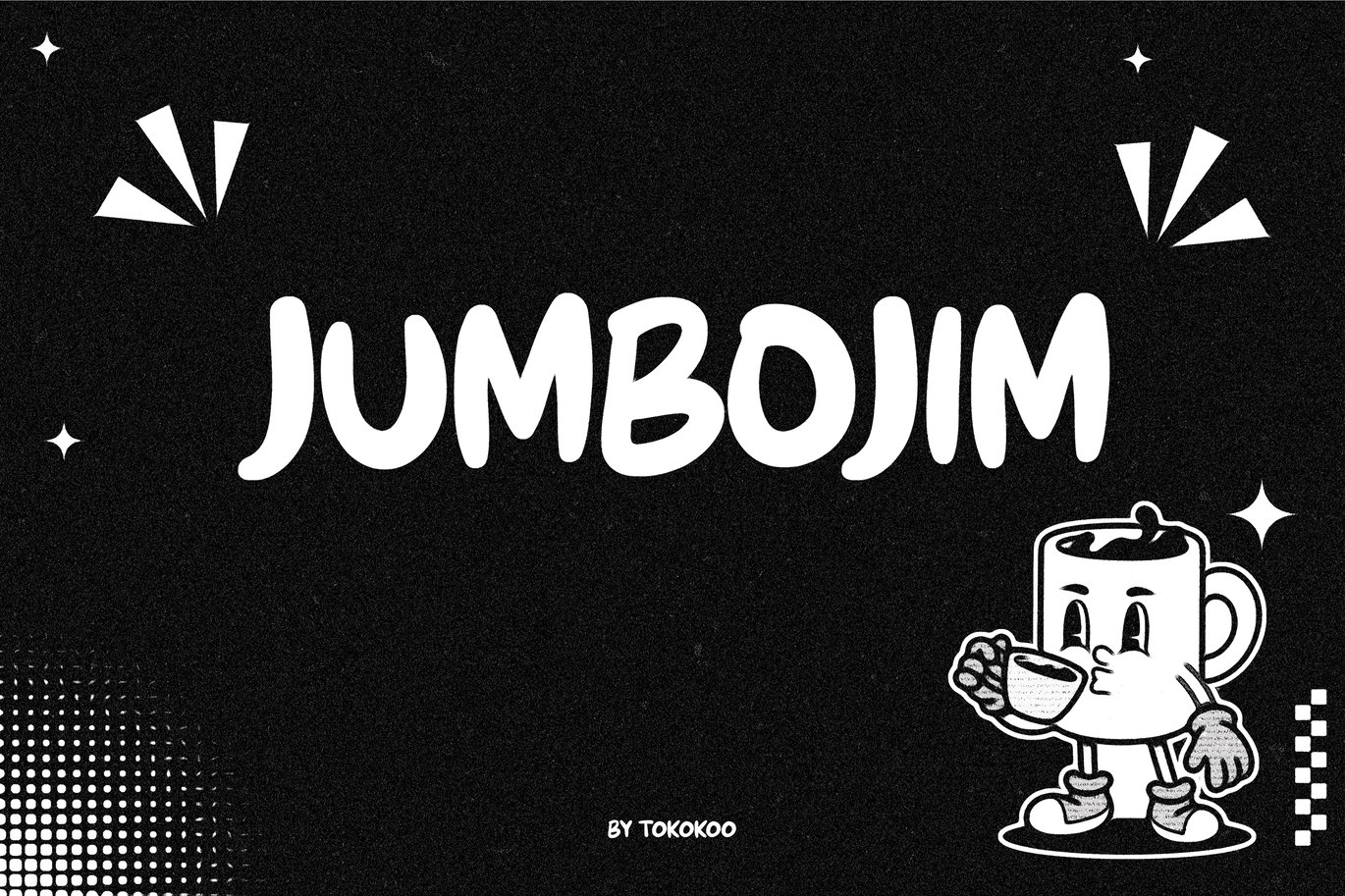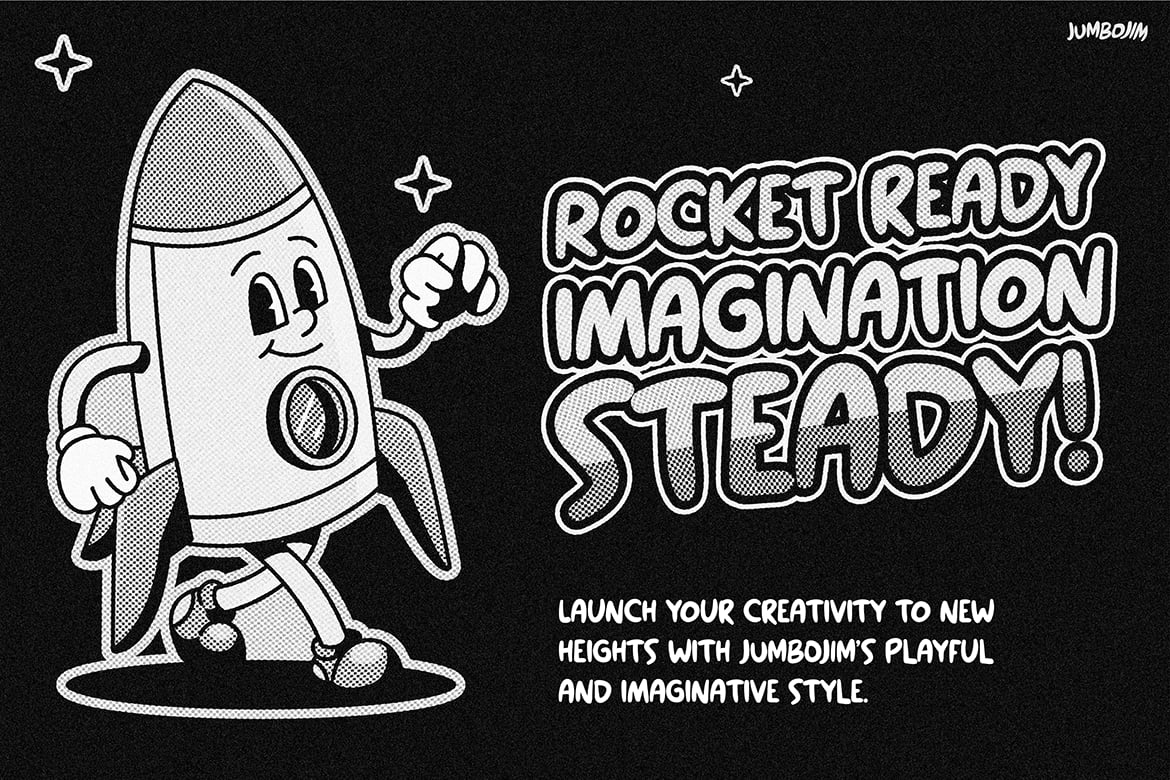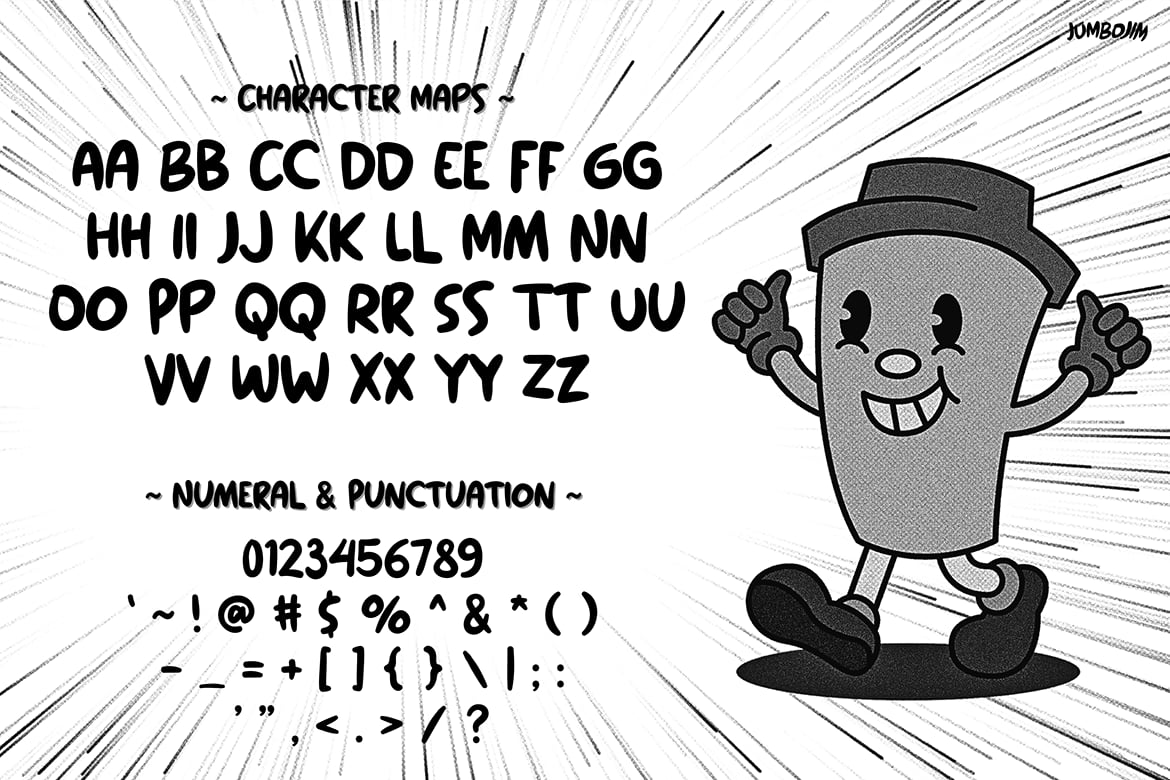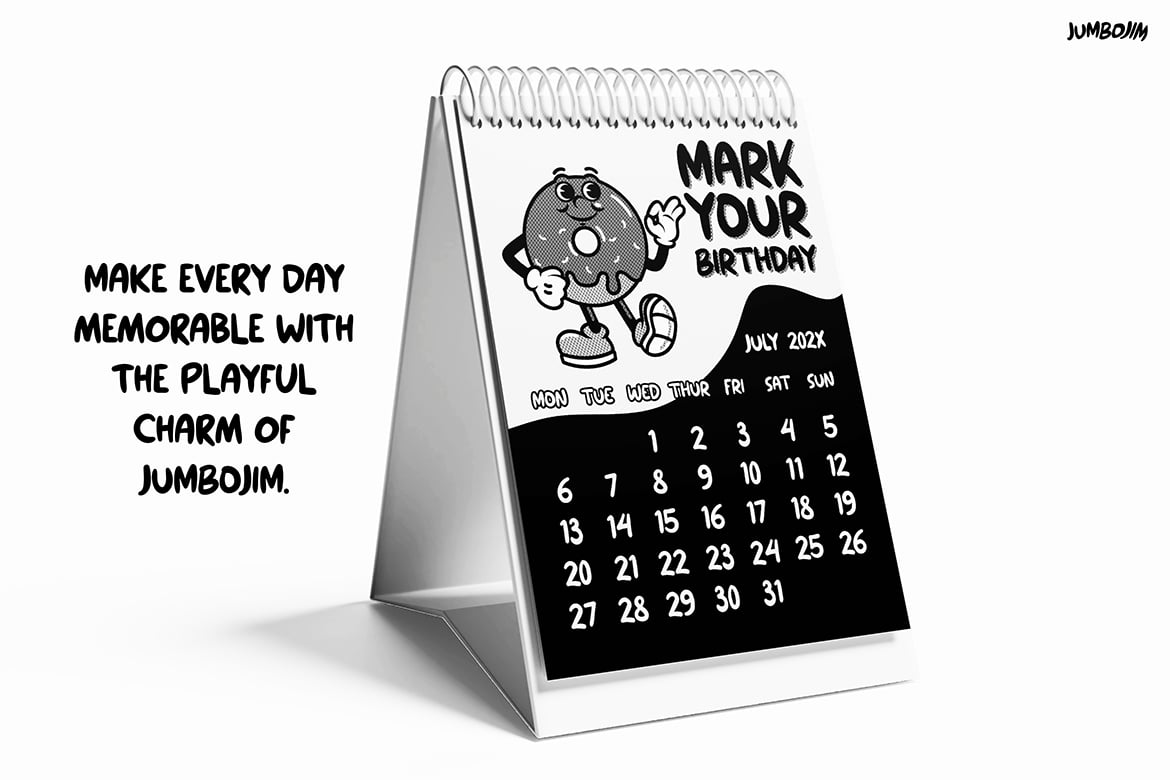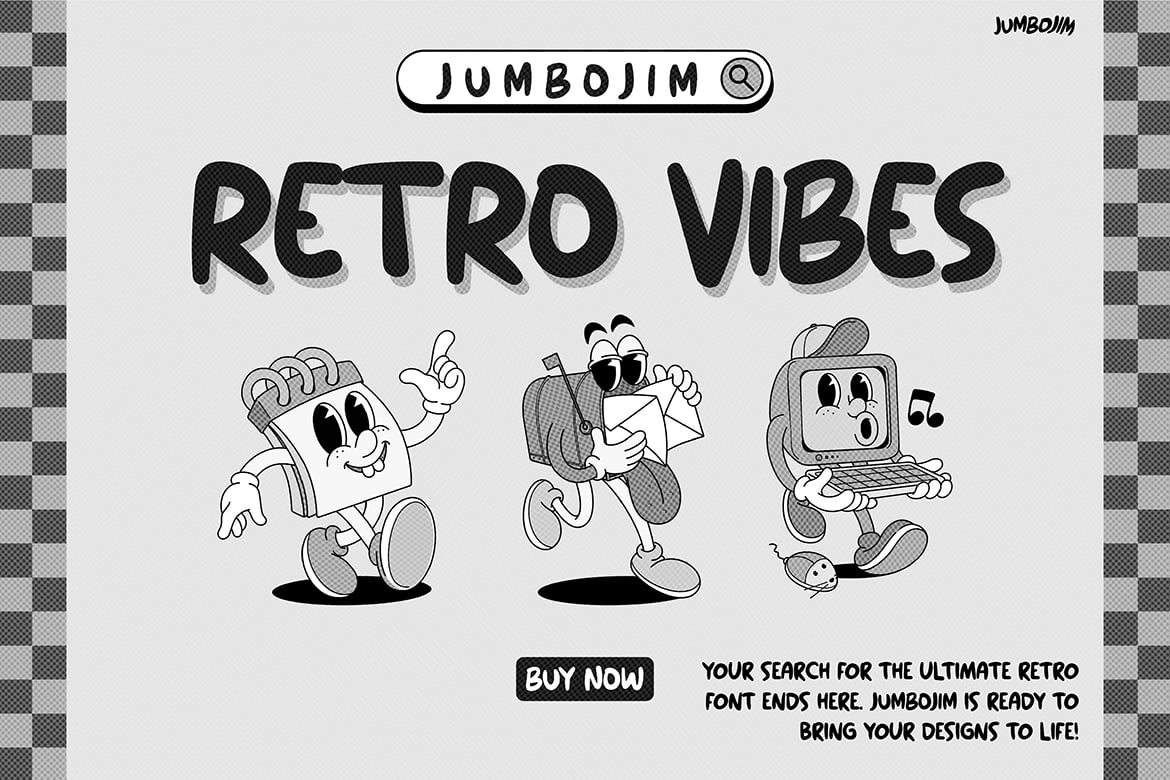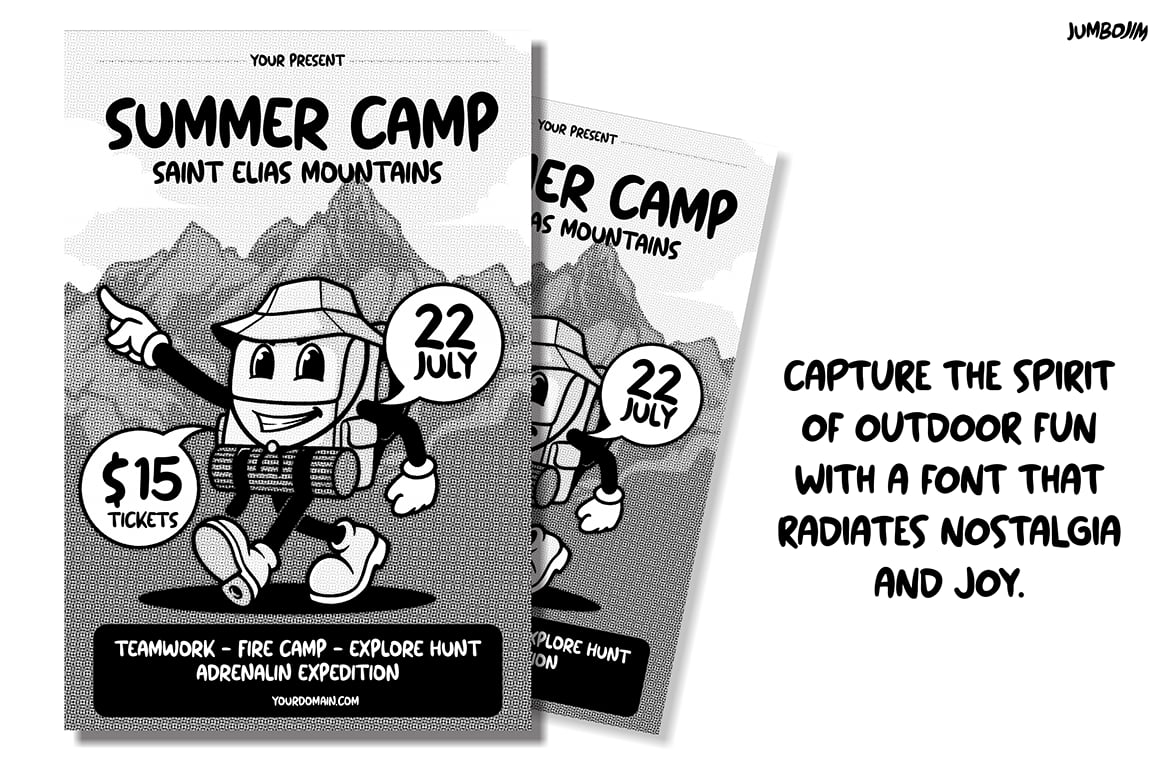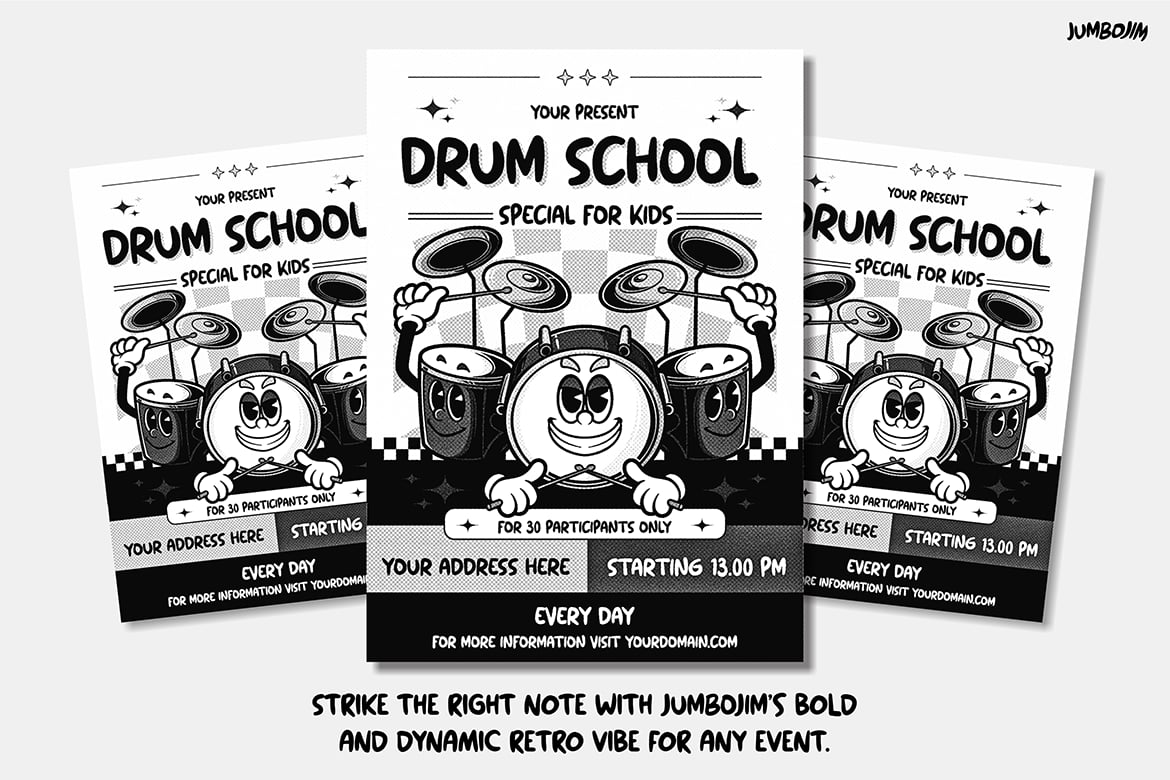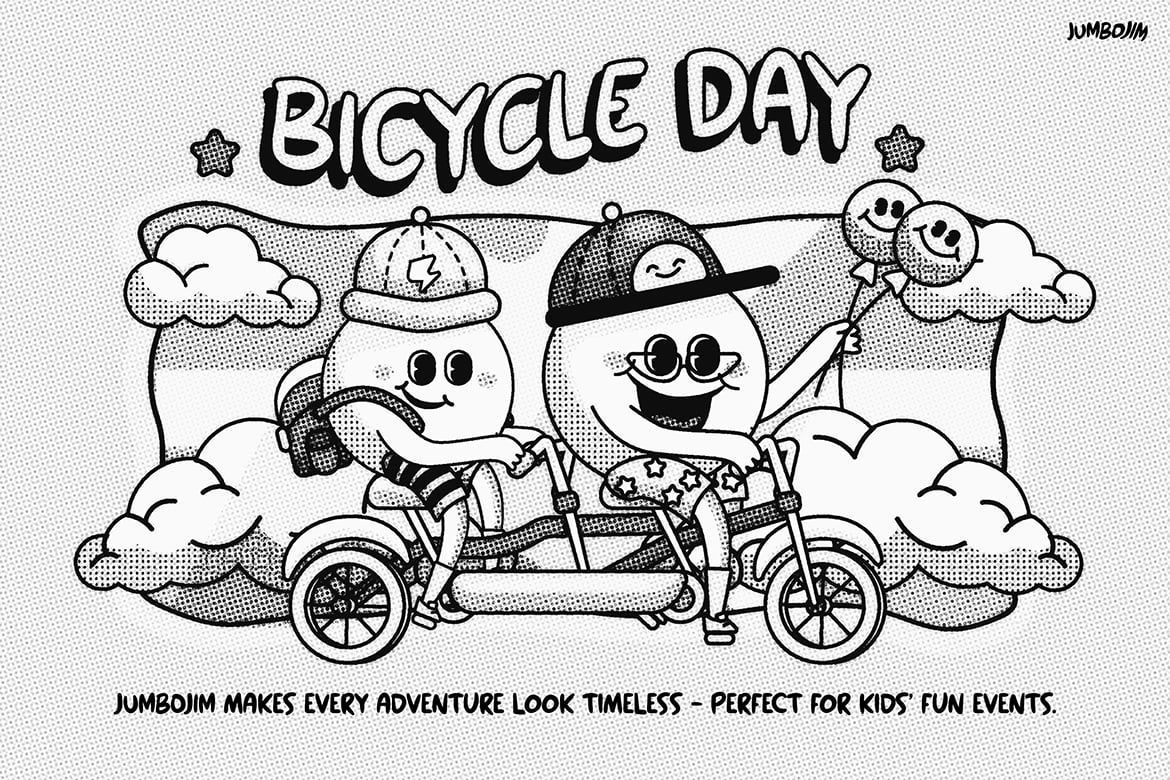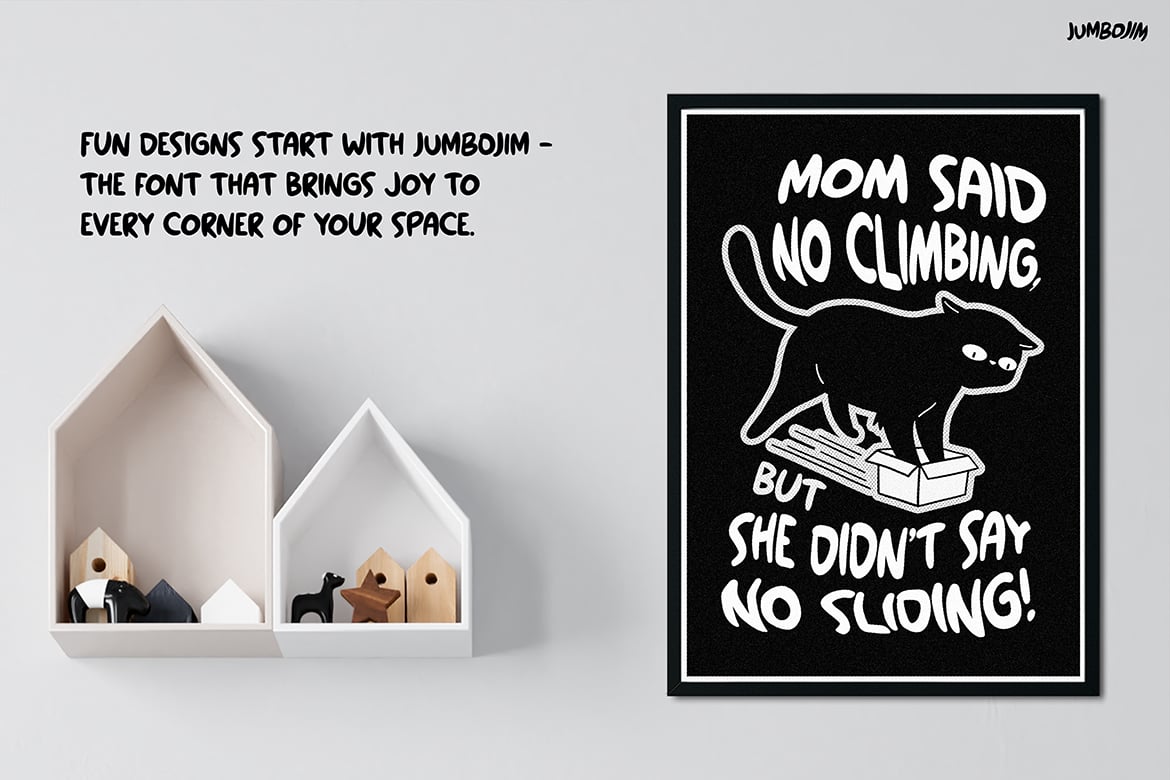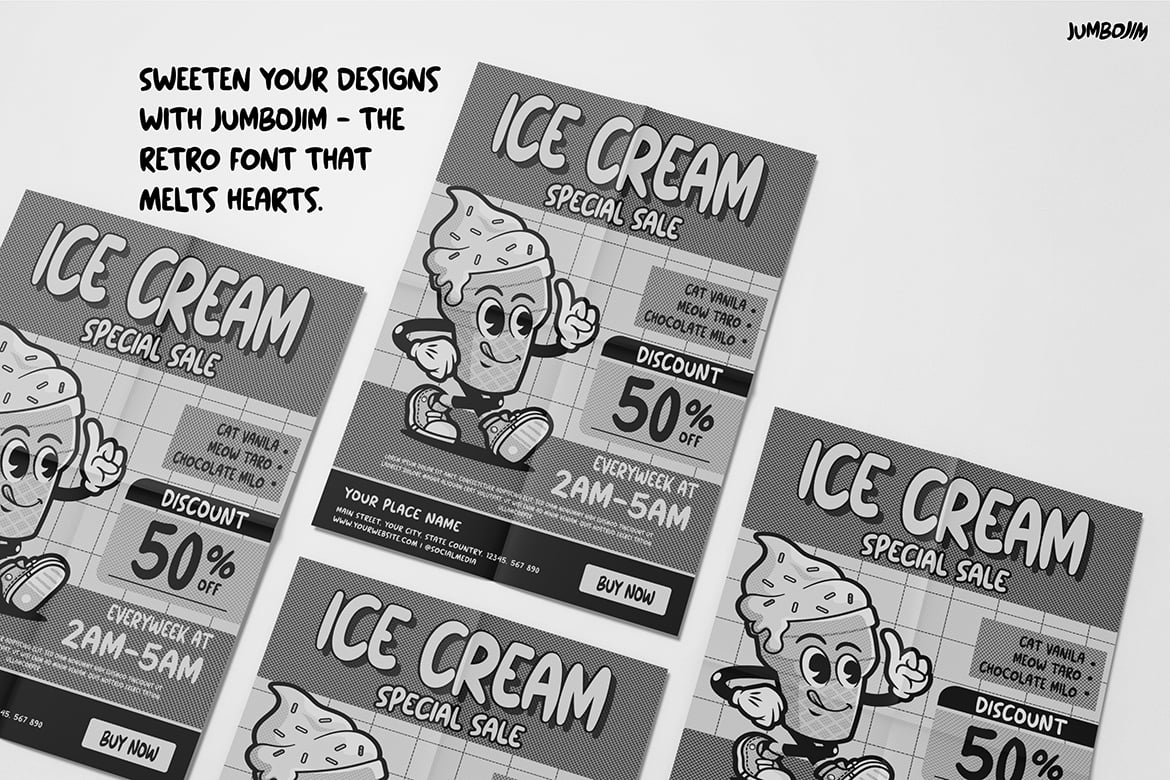
Retro Cartoon Font – Jumbojim
Jumbojim is a quirky, cartoon-inspired display font that brings humor and charm to any design. With its rounded, friendly letterforms and playful personality, Jumbojim exudes a sense of fun and imagination. It’s the perfect choice for designs that want to stand out with a bold yet approachable vibe. Whether you’re crafting whimsical stories or creating unique branding, Jumbojim adds a delightful touch.
Market Applications
Children’s Media & Storytelling
Perfect for children’s books, comics, and animated projects. Jumbojim’s lively style enhances storytelling, making it more engaging for young audiences. -
Branding for Food & Beverage
Great for cafes, snack brands, or packaging that want to communicate a friendly and fun aesthetic. Use it on product labels, menus, or promotional materials. -
Merchandise Design
Ideal for playful merchandise like T-shirts, mugs, or stickers. Its bold style ensures visibility while keeping the design fun and appealing. -
Event Posters & Invitations
Excellent for informal events like birthday parties, kids’ fairs, or game nights. Jumbojim adds a sense of joy and excitement to your promotional designs. -
Social Media Graphics
A fantastic choice for memes, Instagram posts, or YouTube thumbnails. Its expressive nature grabs attention and conveys a playful tone.